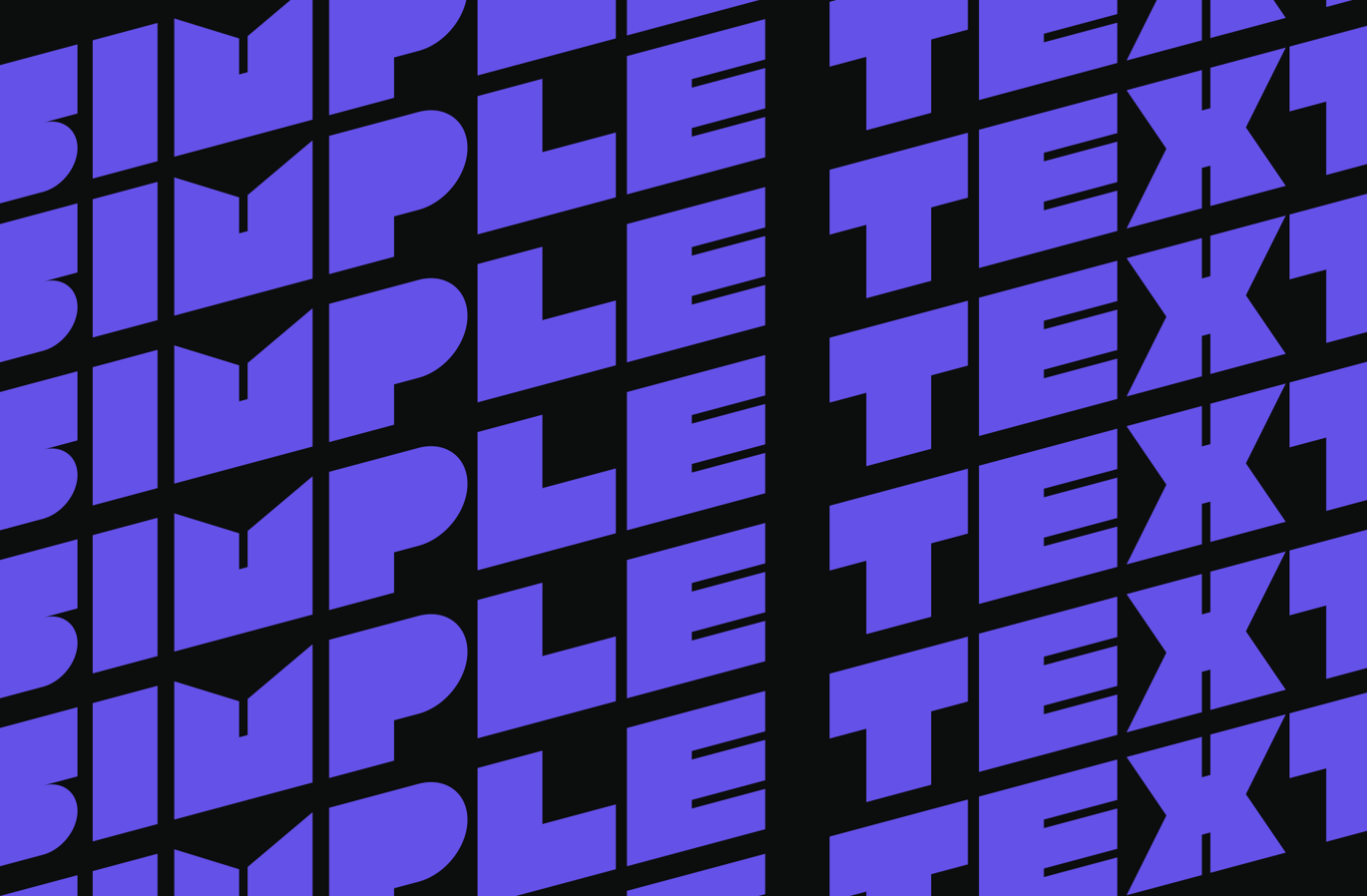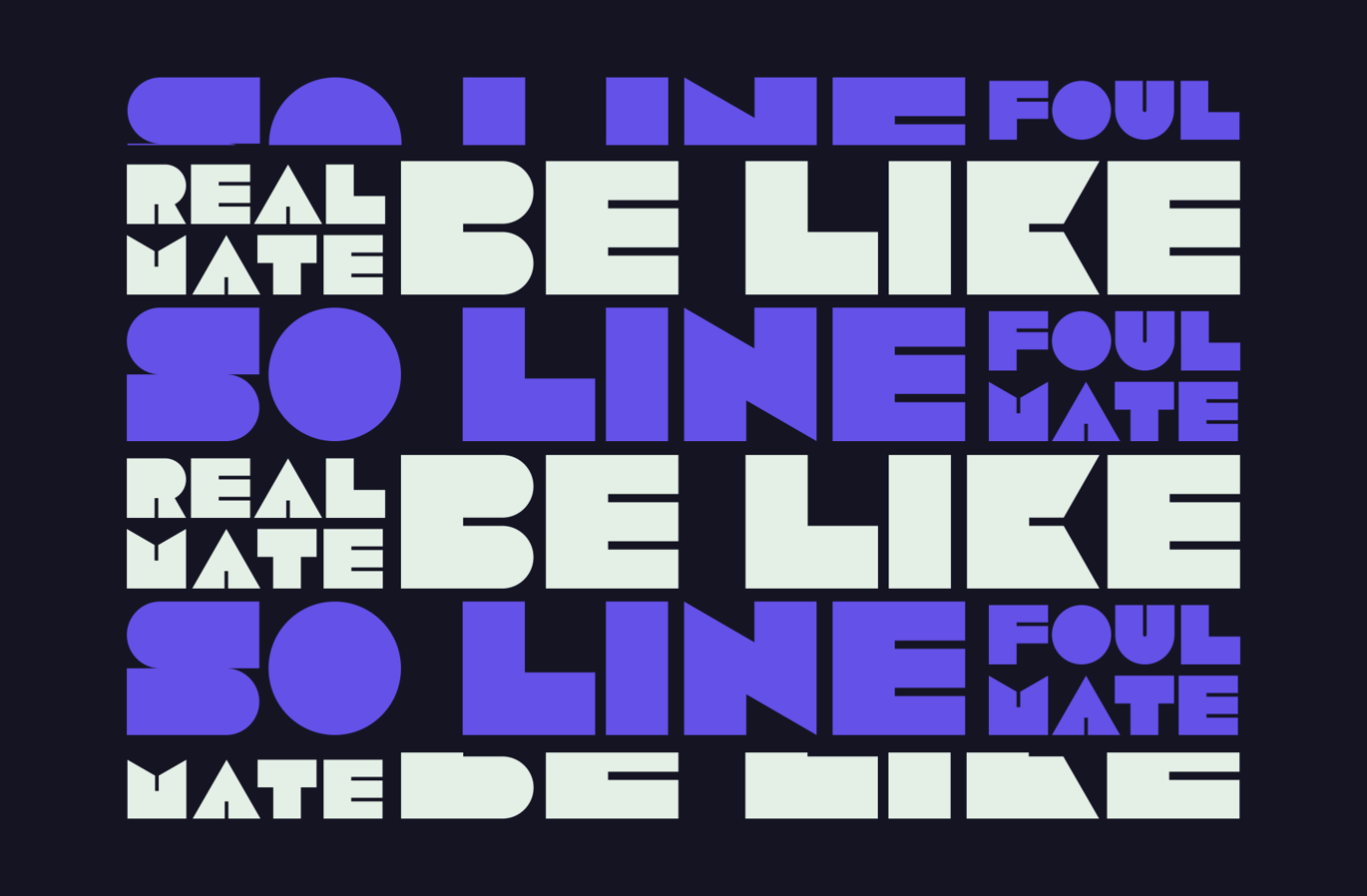
Inner – Modern Sans Display Font
Inner is built from heavy blocks. Marvadesign squared off the bowls, cut small gaps into joins so some letters look stencilled, and pushed the weight so far that counters shrink to slits. The INNER logo in the specimen, with its split N, shows the idea well.
It is a single style with multilingual support. The repeated Simple Text pattern and the Be Like So Line poster show its best trick: tiled across a page in two colours, it stops being text and becomes a pattern.
Best uses for Inner
• Gig and club posters
• Album and mixtape covers
• Streetwear graphics
• Bold magazine headlines
• Pattern backgrounds and textures
Inner is extreme, so pair it with something very plain. Inter keeps small text neat. Space Mono adds a typed, underground feel for dates and credits. Archivo works for subheads that need some weight.
What free font is similar to Inner?
Rubik Mono One and Bungee on Google Fonts are free, open licence heavy display fonts with a similar blocky feel.
Is Inner readable at small sizes?
Not really. The tight counters close up quickly, so keep it above about 40px and use it for short words.